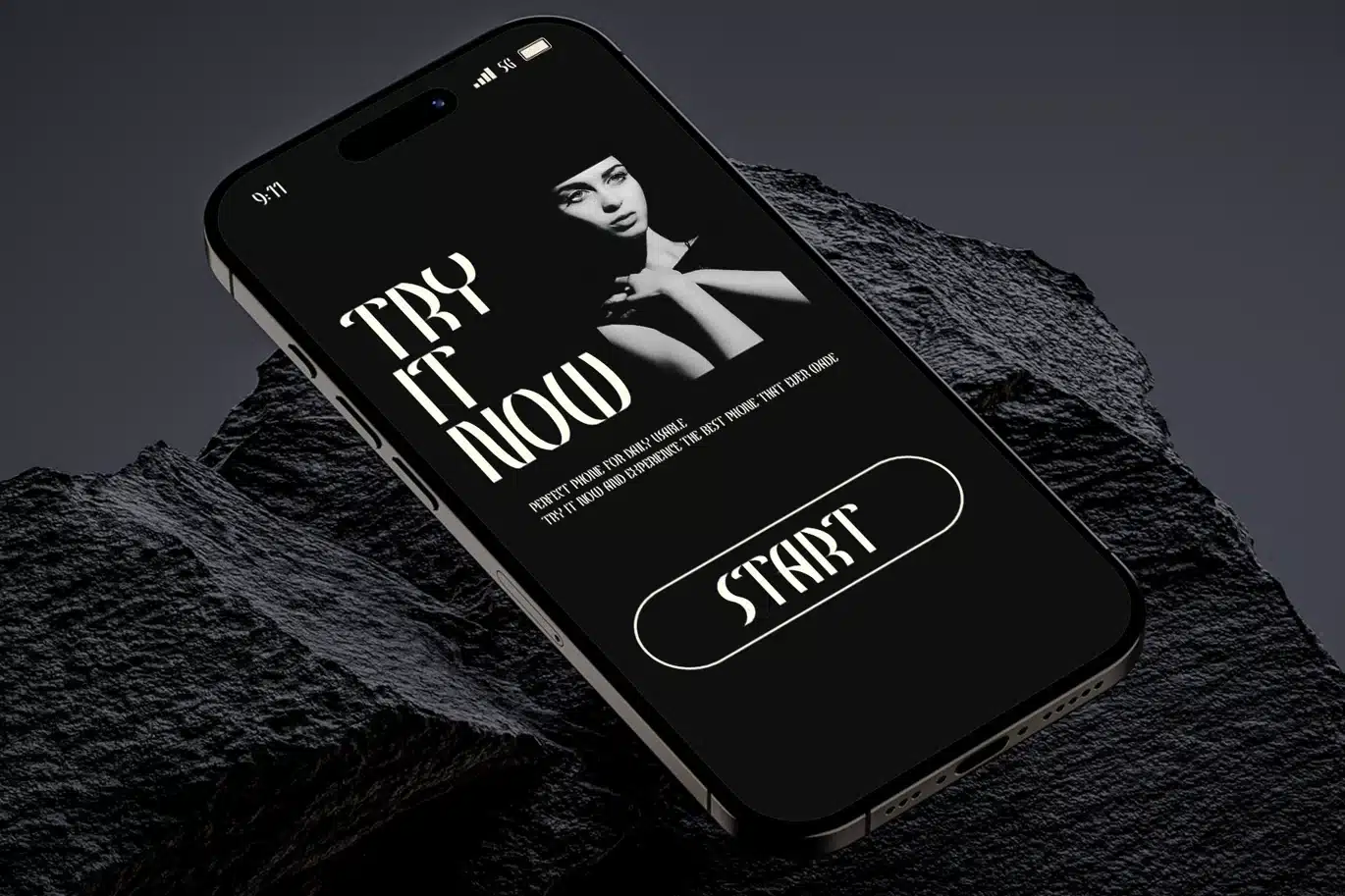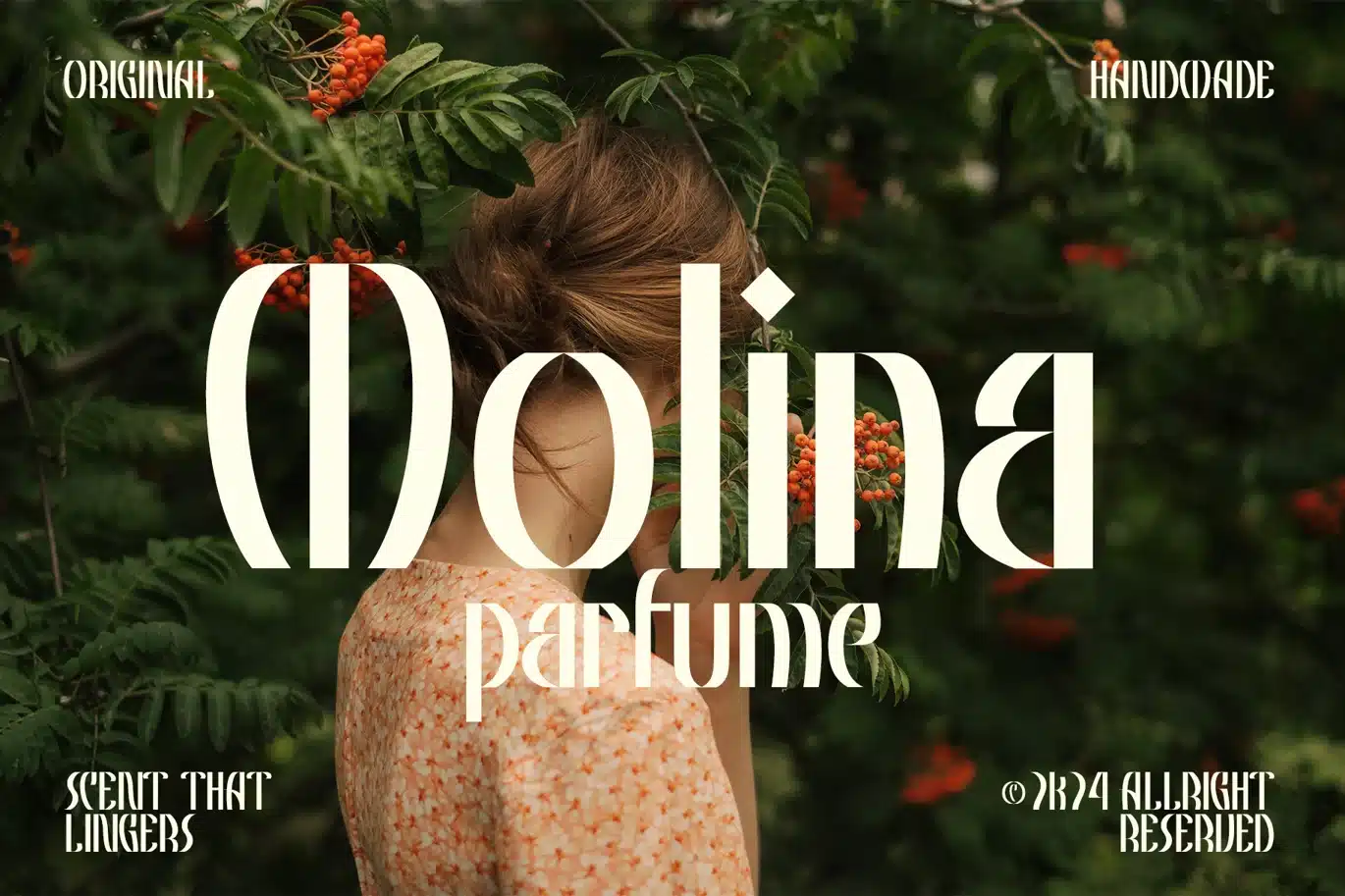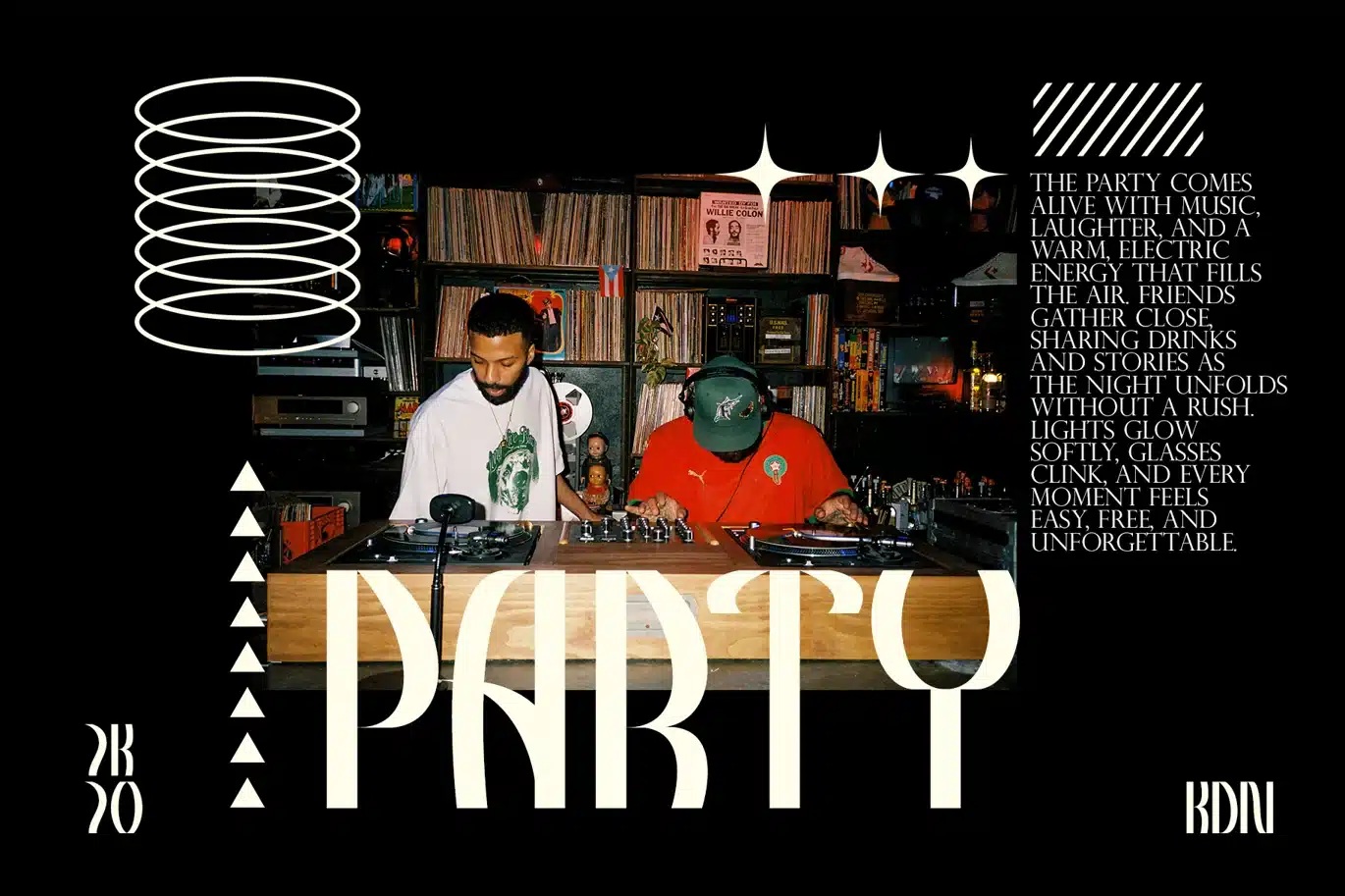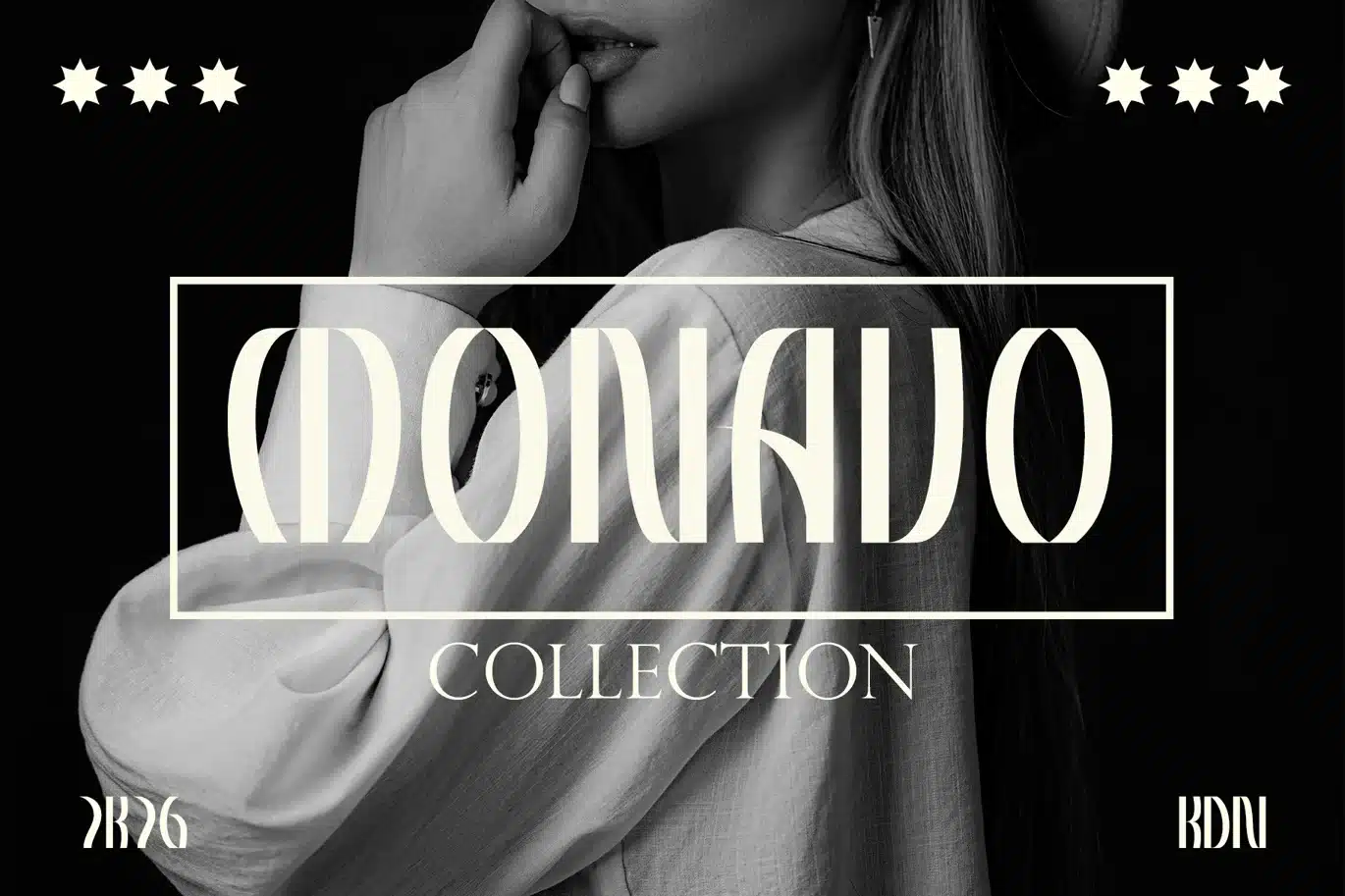
Modern Display Sans – Kadena Font
Kadena is a modern display sans font that blends elegance with artistic sophistication. Defined by its high-contrast strokes, smooth curves, and distinctive letterforms, this typeface delivers a refined and contemporary visual presence. Its unique structure creates a stylish rhythm that enhances readability while maintaining a strong design identity.
Perfect for branding, editorial layouts, fashion campaigns, logos, and beautiful visuals, Kadena stands out in both digital and print applications. The font includes multilingual support, stylistic alternates, and ligatures, allowing designers to craft expressive and polished typography with ease.
Whether used for headlines, packaging, or modern promotional materials, Kadena brings a sleek and fashionable aesthetic to any creative project.